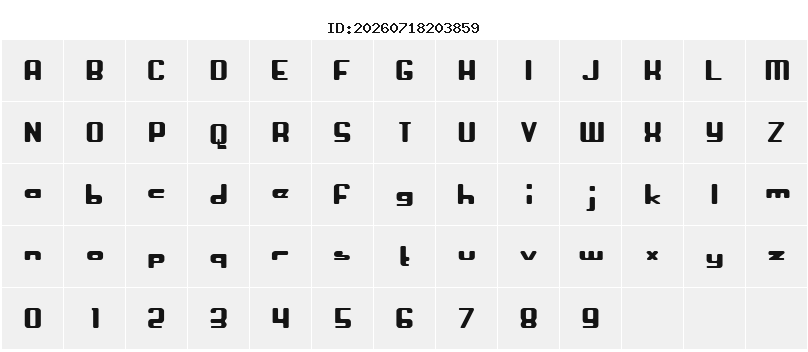
• Designer: Ray Larabie
• Manufacturer: Larabie Fonts
About Crapola.ttf
Crapola.ttf is a modern, elegant sans-serif font designed for ultimate readability and visual harmony. Perfect for branding, headlines, web design, and print materials.